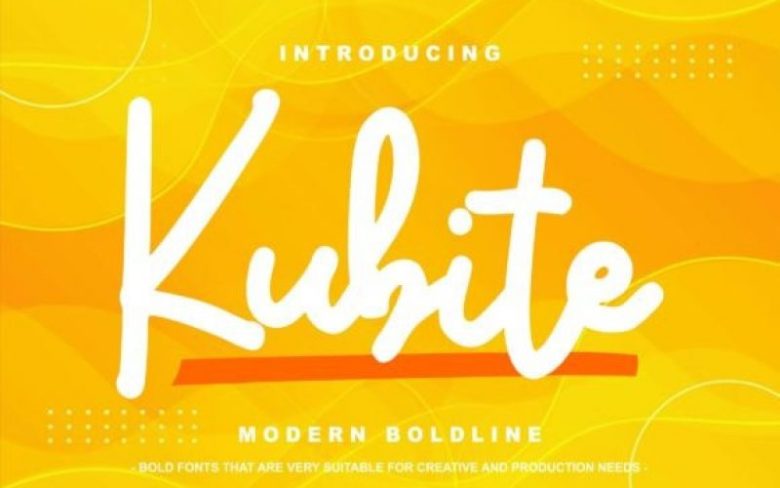
Kubite Script Font Free
Kubite is a sweet and unique handwritten font. Relaxed and a bit quirky, this font is incredibly adept to a wide variety of designs.